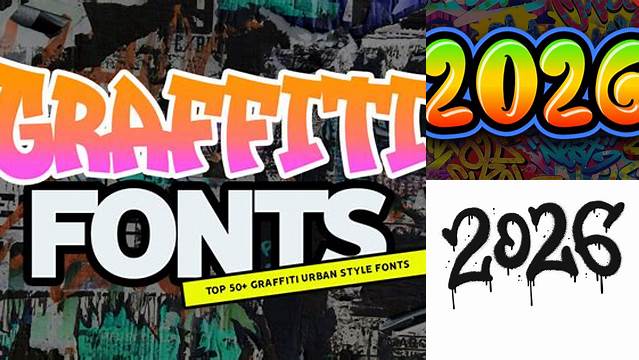
Top Graffiti Fonts For 2026: Fresh & Bold Styles
Graffiti fonts are the backbone of urban design, adding an authentic and edgy feel to any project. In this guide, we're diving deep into the best graffiti fonts you'll want to use in 2026. From tagging to wildstyle, we'll cover everything you need to know to make your designs pop. Get ready to explore the freshest and boldest styles that will dominate the graffiti font scene in the coming year. Let's get started, guys!
What Makes a Great Graffiti Font?
So, what exactly makes a graffiti font great? It's not just about looking rough and rugged. The best graffiti fonts have a unique blend of authenticity, readability, and versatility. Authenticity captures the raw energy of real-world graffiti, reflecting the culture and spirit of the streets. A great graffiti font should look like it was hand-sprayed onto a wall, with all the imperfections and character that come with it. Readability is also key; even with stylized letterforms, the font should still be easy to read, especially in headlines or logos. Versatility is the ability to work in different contexts, whether it's a poster, website, or t-shirt design. The font should complement the overall aesthetic and enhance the message. Factors such as stroke thickness, letter spacing, and overall balance play a significant role in making a graffiti font stand out. Additionally, consider whether the font includes alternative characters, swashes, and ligatures. These extras can add flair and customization, making your designs even more unique. Essentially, a great graffiti font is a perfect blend of art and functionality, capturing the essence of street art while remaining practical for various design applications.
Classic Graffiti Styles: A Timeless Choice
When you think about best graffiti fonts, you can't overlook the classics. These styles have stood the test of time and continue to inspire new generations of designers. Classic graffiti fonts often feature bold, blocky letters with a sense of movement and energy. They're perfect for creating a vintage or retro feel, or for projects that need a strong, impactful visual statement. Think about the old-school hip-hop posters or the iconic album covers of the 80s and 90s. Classic graffiti styles also tend to be more readable than some of the more complex wildstyle fonts, making them a good choice for body text or smaller design elements. Some popular classic styles include throw-ups, block letters, and bubble letters. Throw-ups are simple, quickly drawn pieces often used for tagging. Block letters are characterized by their solid, geometric forms, while bubble letters have a rounded, playful look. Each of these styles brings its own unique flavor to your designs. When using classic graffiti fonts, consider the color palette and background textures. Pairing them with bold colors and gritty textures can enhance the authenticity and visual impact.
Modern Graffiti Fonts: The New Wave
Modern graffiti fonts are pushing the boundaries of traditional street art, incorporating new techniques and styles that reflect the evolving urban landscape. These fonts often feature sleek lines, abstract shapes, and innovative design elements that set them apart from classic styles. The best graffiti fonts in this category blend the raw energy of graffiti with contemporary design principles. Modern graffiti fonts are incredibly versatile, working well in a wide range of applications, from digital art and web design to branding and advertising. They offer a fresh and edgy look that can capture the attention of today's audiences. One of the key characteristics of modern graffiti fonts is their willingness to experiment with form and structure. You might see fonts with distorted letterforms, asymmetrical designs, or intricate layering effects. These fonts often incorporate elements of other design styles, such as geometric shapes, glitch effects, and futuristic motifs. When using modern graffiti fonts, it's important to consider the overall aesthetic of your project. They pair well with clean, minimalist designs, as well as bold, vibrant color schemes. Experiment with different combinations to find the perfect balance that captures the essence of your message.
Wildstyle Graffiti Fonts: Intricate and Complex
Wildstyle graffiti fonts are the pinnacle of complexity and creativity in the world of street art. These fonts are characterized by their intricate letterforms, overlapping lines, and abstract shapes that can be challenging to decipher, even for experienced graffiti artists. The best graffiti fonts in the wildstyle category are a testament to the artist's skill and imagination. They often require a high level of attention to detail and a deep understanding of graffiti techniques. Wildstyle fonts are not for the faint of heart, but when used effectively, they can create a powerful and visually stunning impact. They're perfect for projects that need to convey a sense of energy, chaos, and rebellion. Wildstyle fonts are commonly used in murals, posters, and album covers, where their bold and intricate designs can take center stage. When working with wildstyle fonts, it's important to balance the complexity with readability. While the goal is to create a visually striking design, you also want to ensure that the letters are somewhat recognizable. Experiment with different color combinations, layering effects, and background textures to enhance the visual impact of the font. Remember, the key to successful wildstyle design is to embrace the chaos while maintaining a sense of balance and harmony.
Bubble Graffiti Fonts: Playful and Fun
Bubble graffiti fonts are all about bringing a playful and fun vibe to your designs. These fonts feature rounded letterforms, soft edges, and a cheerful aesthetic that's perfect for projects that need a touch of whimsy. The best graffiti fonts in the bubble category are easy to read and approachable, making them a great choice for a wide range of applications. Bubble fonts are often used in children's books, birthday cards, and other lighthearted designs. They can also be effective in creating a friendly and inviting brand identity. One of the defining characteristics of bubble graffiti fonts is their emphasis on rounded shapes. The letters often appear inflated, giving them a sense of volume and depth. This creates a visually appealing effect that's both eye-catching and easy on the eyes. When using bubble graffiti fonts, consider the color palette and background textures. Bright, pastel colors can enhance the playful feel, while soft textures can add a sense of warmth and comfort. Experiment with different combinations to find the perfect balance that captures the essence of your message. Remember, bubble fonts are all about having fun, so don't be afraid to get creative and experiment with different design elements.
Tagging Graffiti Fonts: Raw and Authentic
Tagging graffiti fonts capture the raw and authentic spirit of street art. These fonts are inspired by the quick, spontaneous tags that graffiti artists use to mark their territory. The best graffiti fonts in the tagging category are characterized by their simple, hand-drawn letterforms and a sense of urgency and energy. Tagging fonts are perfect for projects that need to convey a sense of authenticity, rebellion, and urban grit. They're often used in posters, flyers, and other promotional materials for music events, art exhibitions, and street culture initiatives. One of the key characteristics of tagging graffiti fonts is their emphasis on simplicity and speed. The letters are often drawn with a single stroke, creating a sense of fluidity and movement. This gives them a raw, unfiltered look that's both eye-catching and impactful. When using tagging graffiti fonts, consider the background textures and color palette. Gritty textures, such as brick walls or concrete, can enhance the authenticity of the design, while bold, contrasting colors can make the letters stand out. Experiment with different combinations to find the perfect balance that captures the essence of your message. Remember, tagging fonts are all about capturing the spirit of the streets, so don't be afraid to embrace the imperfections and irregularities.
Stencil Graffiti Fonts: Clean and Precise
Stencil graffiti fonts offer a clean and precise alternative to the more freeform styles of street art. These fonts are inspired by the stencils that graffiti artists use to create consistent and reproducible designs. The best graffiti fonts in the stencil category are characterized by their sharp lines, geometric shapes, and a sense of order and control. Stencil fonts are perfect for projects that need to convey a sense of precision, efficiency, and industrial strength. They're often used in logos, signage, and other branding materials for businesses in the manufacturing, technology, and construction industries. One of the key characteristics of stencil graffiti fonts is their emphasis on clean lines and geometric shapes. The letters are often designed with a consistent width and spacing, creating a sense of uniformity and balance. This gives them a modern, industrial look that's both eye-catching and professional. When using stencil graffiti fonts, consider the color palette and background textures. Bold, contrasting colors can enhance the visibility of the letters, while metallic textures can add a sense of sophistication and elegance. Experiment with different combinations to find the perfect balance that captures the essence of your message. Remember, stencil fonts are all about precision and control, so pay attention to the details and ensure that the design is clean and consistent.
3D Graffiti Fonts: Adding Depth and Dimension
3D graffiti fonts take street art to a whole new dimension, adding depth and dimension to your designs. These fonts feature layered letterforms, shading effects, and perspective tricks that create a sense of realism and visual impact. The best graffiti fonts in the 3D category are characterized by their intricate details and a sense of depth that draws the viewer in. 3D fonts are perfect for projects that need to make a bold statement and capture the attention of the audience. They're often used in posters, billboards, and other large-format designs, where their three-dimensional effects can be fully appreciated. One of the key characteristics of 3D graffiti fonts is their emphasis on shading and perspective. The letters are often designed with multiple layers and gradients, creating a sense of depth and volume. This gives them a realistic look that's both eye-catching and impressive. When using 3D graffiti fonts, consider the lighting and background textures. Realistic lighting effects can enhance the three-dimensional illusion, while textured backgrounds can add depth and realism to the design. Experiment with different combinations to find the perfect balance that captures the essence of your message. Remember, 3D fonts are all about creating a visual impact, so don't be afraid to push the boundaries and experiment with different techniques.
Outline Graffiti Fonts: Clean and Minimalist
Outline graffiti fonts offer a clean and minimalist approach to street art, focusing on the basic shapes and forms of the letters. These fonts feature hollow letterforms with a thin outline, creating a sense of lightness and simplicity. The best graffiti fonts in the outline category are characterized by their clean lines and a modern, understated aesthetic. Outline fonts are perfect for projects that need to convey a sense of sophistication, elegance, and minimalism. They're often used in logos, branding materials, and website designs for businesses in the fashion, beauty, and design industries. One of the key characteristics of outline graffiti fonts is their emphasis on clean lines and simple shapes. The letters are often designed with a consistent width and spacing, creating a sense of uniformity and balance. This gives them a modern, minimalist look that's both eye-catching and professional. When using outline graffiti fonts, consider the color palette and background textures. Light, neutral colors can enhance the sense of simplicity and elegance, while textured backgrounds can add depth and interest to the design. Experiment with different combinations to find the perfect balance that captures the essence of your message. Remember, outline fonts are all about simplicity and elegance, so pay attention to the details and ensure that the design is clean and consistent.
Future Trends in Graffiti Fonts: What to Expect in 2026
Looking ahead to 2026, the world of graffiti fonts is set to evolve even further, with new trends and innovations emerging to push the boundaries of street art. The best graffiti fonts of the future will likely incorporate elements of augmented reality, interactive design, and artificial intelligence. Expect to see fonts that can change their appearance based on the viewer's perspective, adapt to different environments, and even generate unique designs on the fly. Another trend to watch for is the integration of 3D printing technology, which will allow designers to create physical graffiti fonts that can be installed in public spaces. These 3D fonts will add a new dimension to street art, blurring the line between the digital and physical worlds. Additionally, expect to see more collaboration between graffiti artists and digital designers, leading to the creation of hybrid fonts that combine traditional techniques with modern technologies. These collaborative efforts will result in a diverse range of styles and aesthetics, reflecting the ever-evolving nature of street culture. As technology continues to advance, the possibilities for graffiti fonts are endless, and 2026 is sure to bring a wave of exciting new designs and innovations.